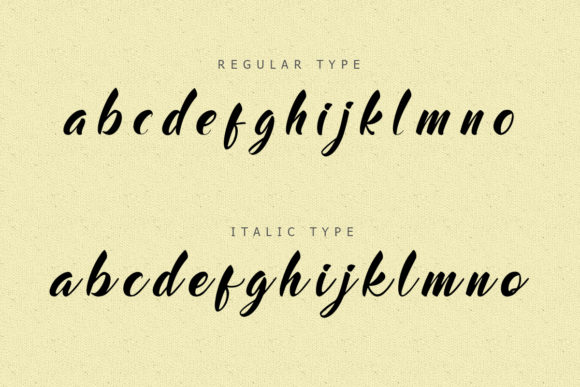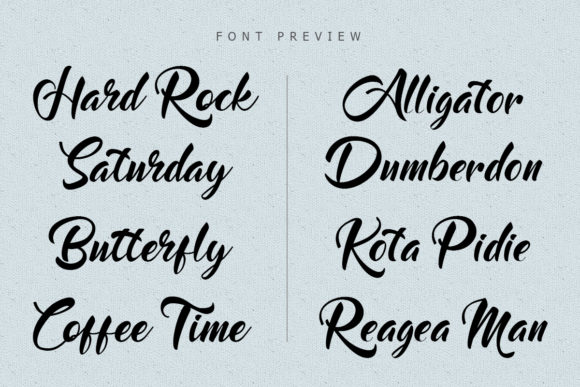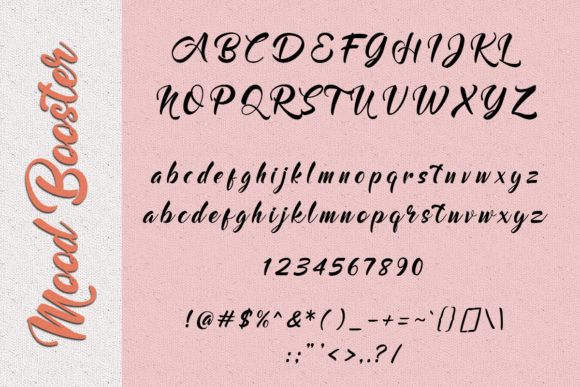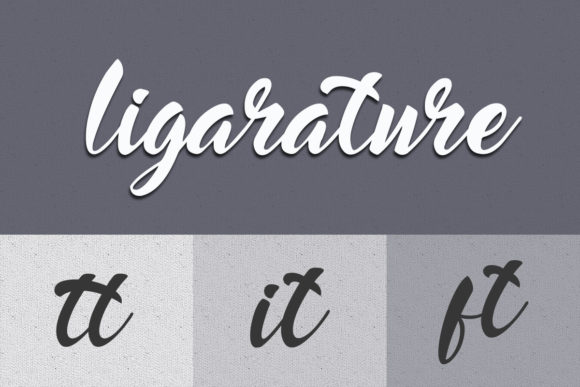
Mood Booster Font
About Mood Booster Font
Mood Booster is a handmade authentic font with a stylish feel. It will add a unique and dynamic touch to any design project.